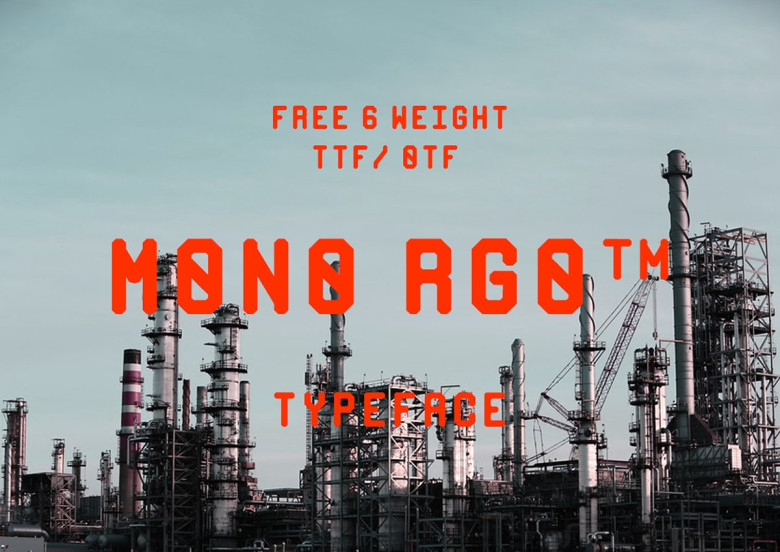
MONO RGO™ Typeface
MONO RGO™ Typeface designed by Deni Anggara, a designer from Berlin, Germany. MONO RGO™ Based Modular type-space inspired by monospace, Modernism & Industrial Graphic Design. MONO RGO is a sturdy display face perfect for headings, logos, and cattle drives.